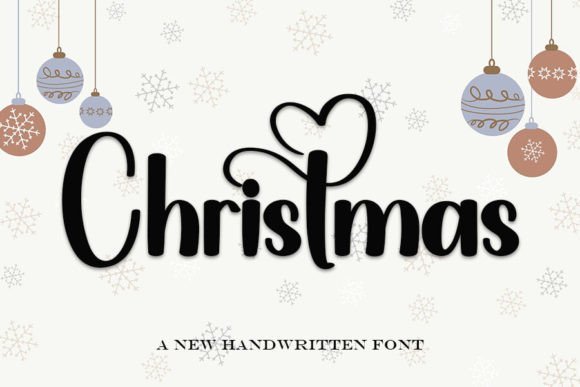
Getting into the Holiday Spirit with Christmas Font
As the holiday season approaches, many of us find ourselves rummaging through our craft supplies, searching for the perfect way to add a touch of festive flair to our projects. For designers, the hunt for the perfect font is often the most exciting part of the process. This is where the Christmas Font comes in – a stylish handwritten font that embodies the spirit of the season.
With its contemporary atmosphere and impeccable form, this font is the perfect addition to any holiday project. Whether you’re designing greeting cards, gift tags, or social media posts, the Christmas Font is sure to add a touch of elegance and sophistication. And with its PUA encoding, you can easily access all of the amazing glyphs and ligatures that make this font so unique.
As a designer, you know how valuable a great font can be in elevating your projects. The Christmas Font is no exception – its versatility and style make it a must-have for any holiday design project.
Key Features of Christmas Font
- Font Family: Christmas Font is a unique, hand-drawn font family that captures the spirit of the holiday season.
- Character Set: The font family includes a comprehensive set of characters, including uppercase and lowercase letters, numbers, and punctuation marks.
- Unique Characteristics: Christmas Font features intricate, hand-drawn illustrations and ornaments that add a touch of whimsy and festive charm to any design.
Designer Review: Christmas Font
Overall, the Christmas Font is a delightful addition to any holiday-themed project. Here’s what I love about it:
- ✨ The whimsical illustrations and ornaments add a playful touch, making it perfect for children’s books, greeting cards, or social media graphics.
- ✨ The font’s bold and colorful style effectively conveys the festive spirit, making it ideal for holiday advertising and promotional materials.
- ✨ The versatility of the font allows designers to easily create a range of holiday-themed designs, from simple to elaborate.
- ⚠️ The font may not be suitable for formal or professional projects, as it’s more geared towards a playful and casual audience.
- ⚠️ Some users may find the font’s size and color options limited, which could restrict their creative freedom.
Overall, I think the Christmas Font is a great addition to any designer’s toolkit, especially for holiday-themed projects. While it may have some limitations, its unique style and versatility make it a valuable resource for designers looking to create festive and engaging designs.